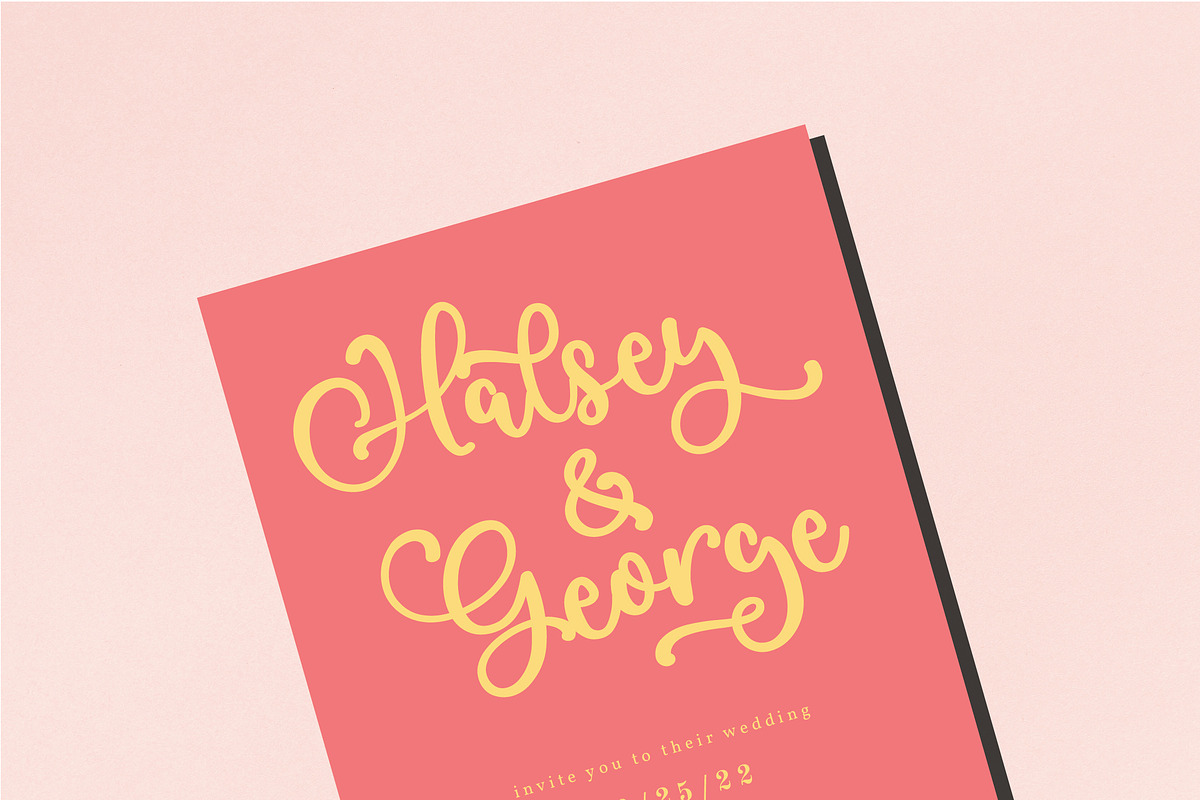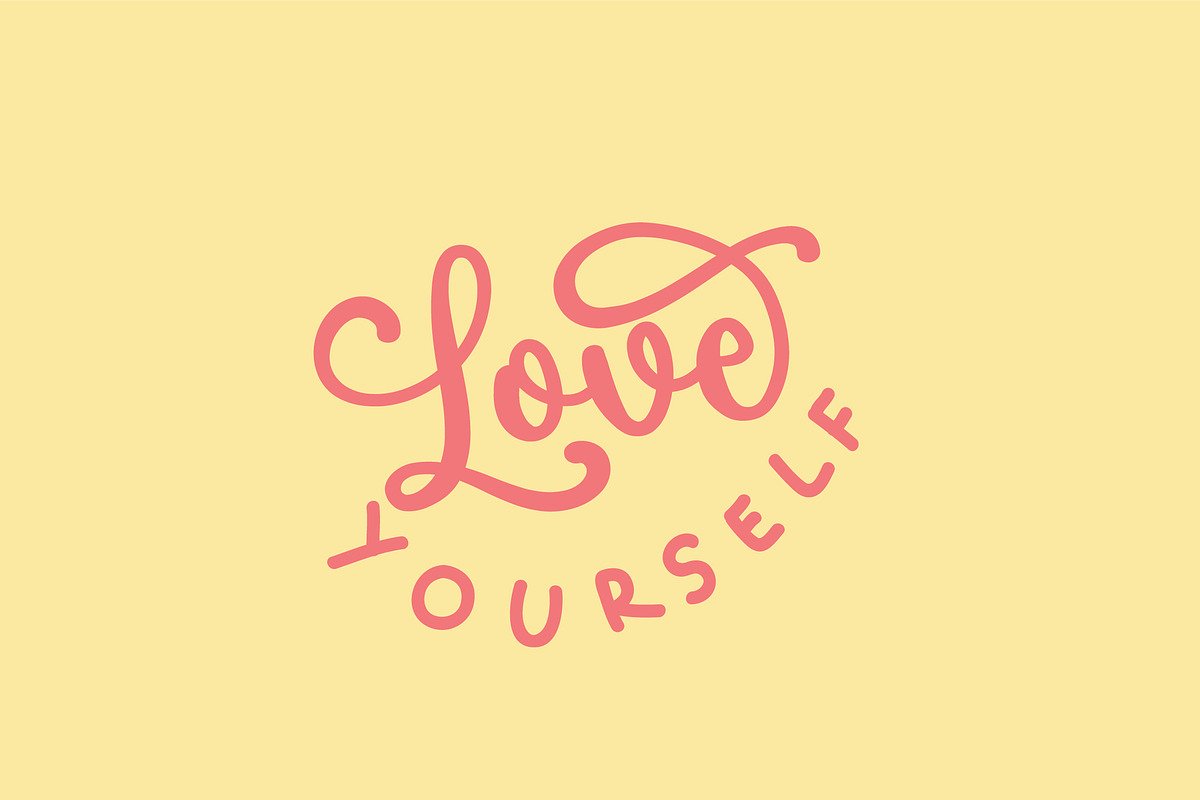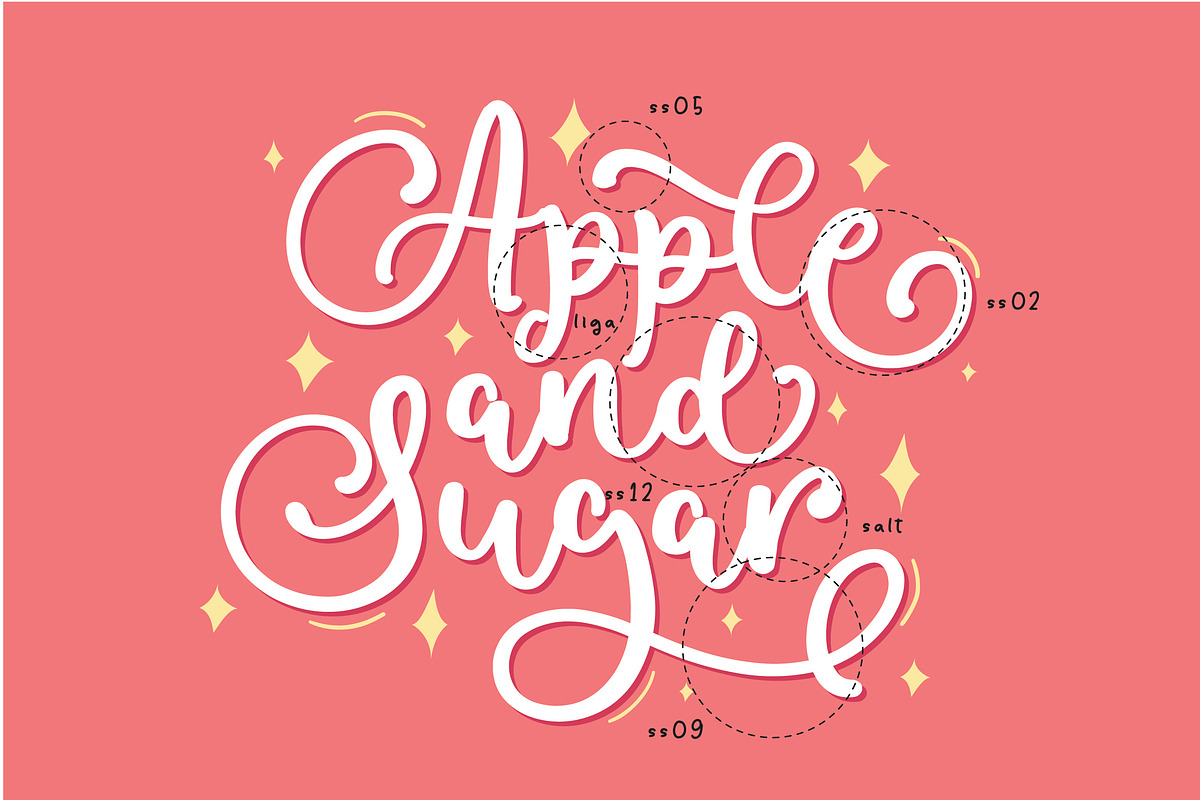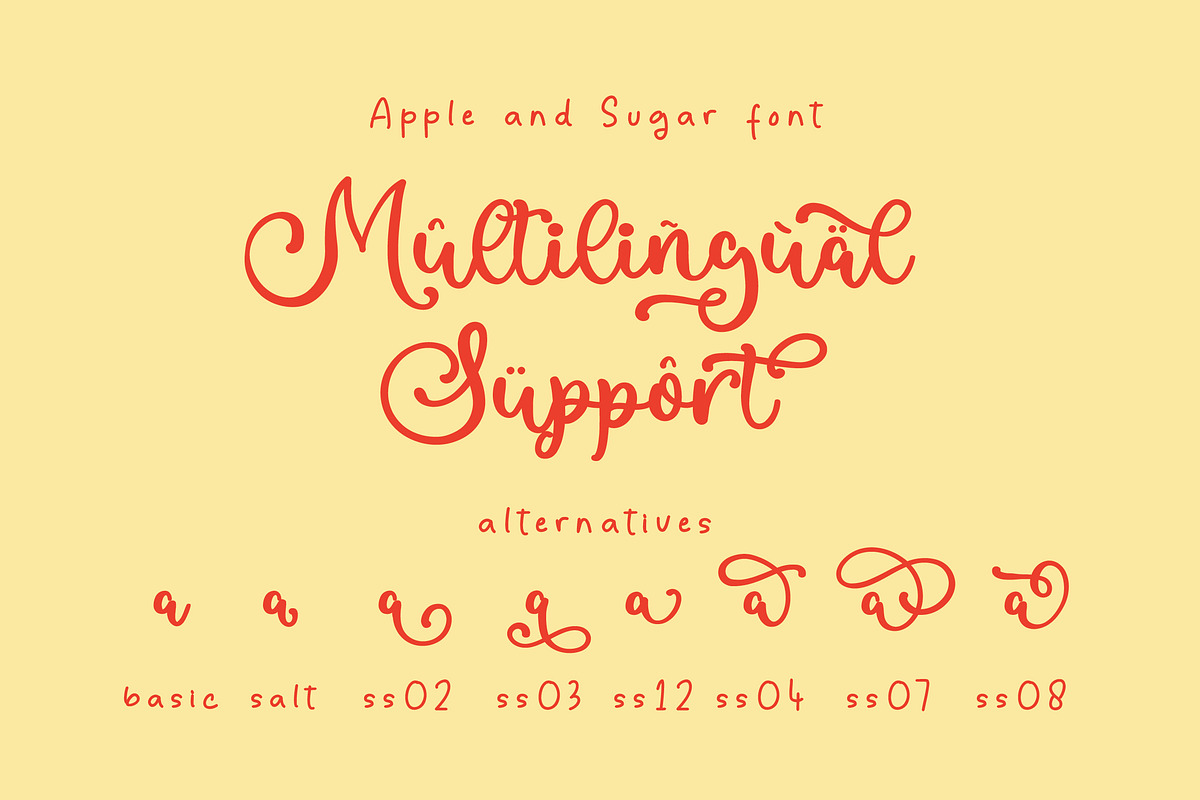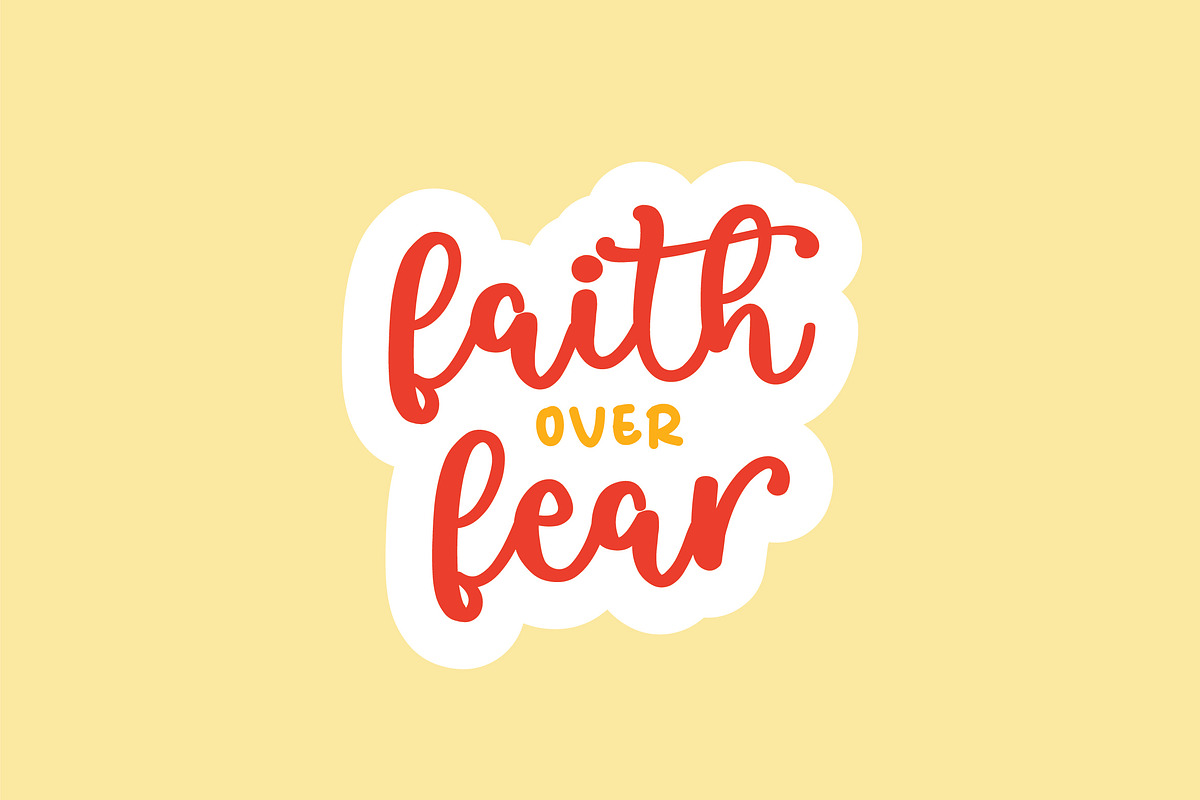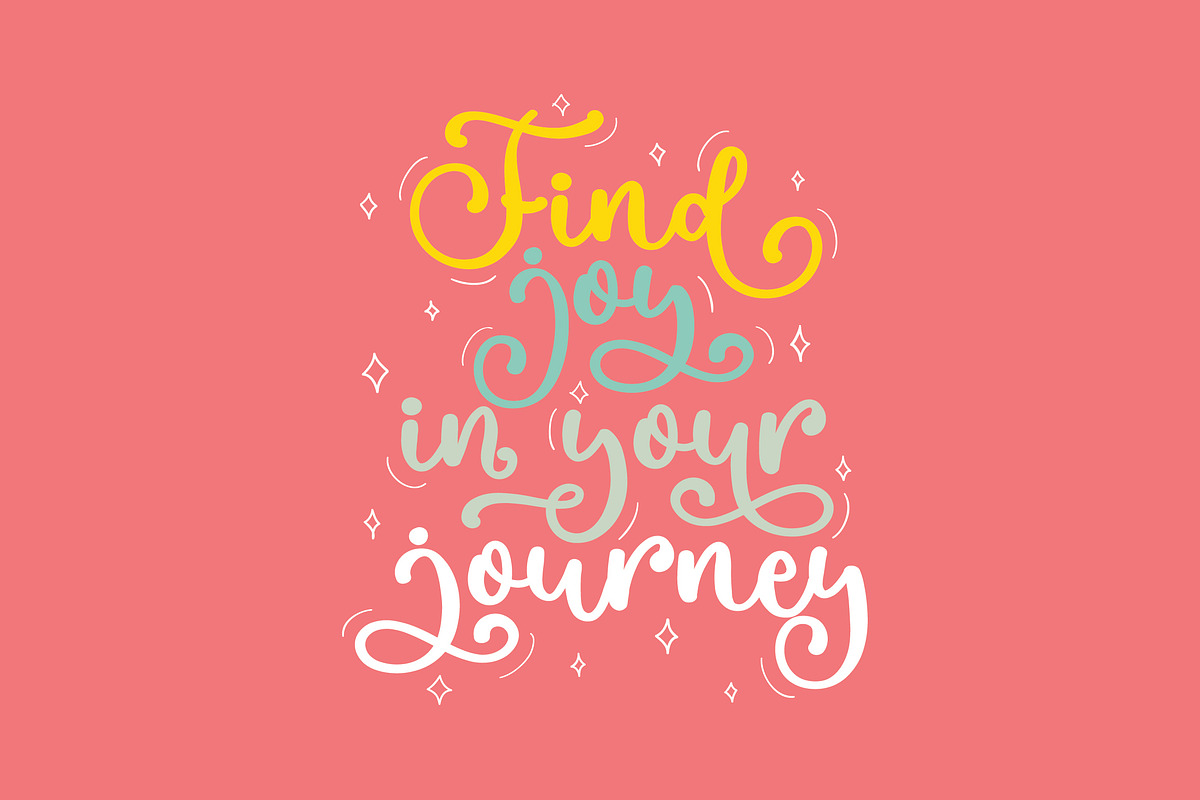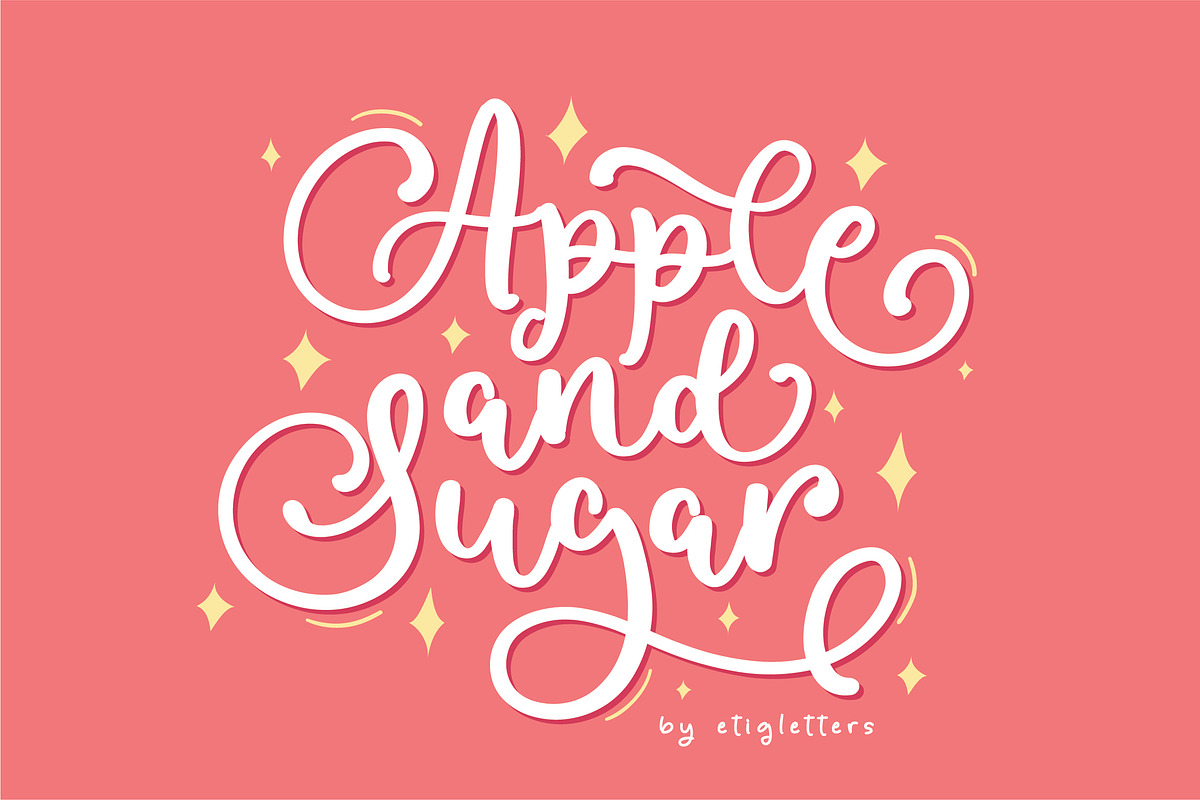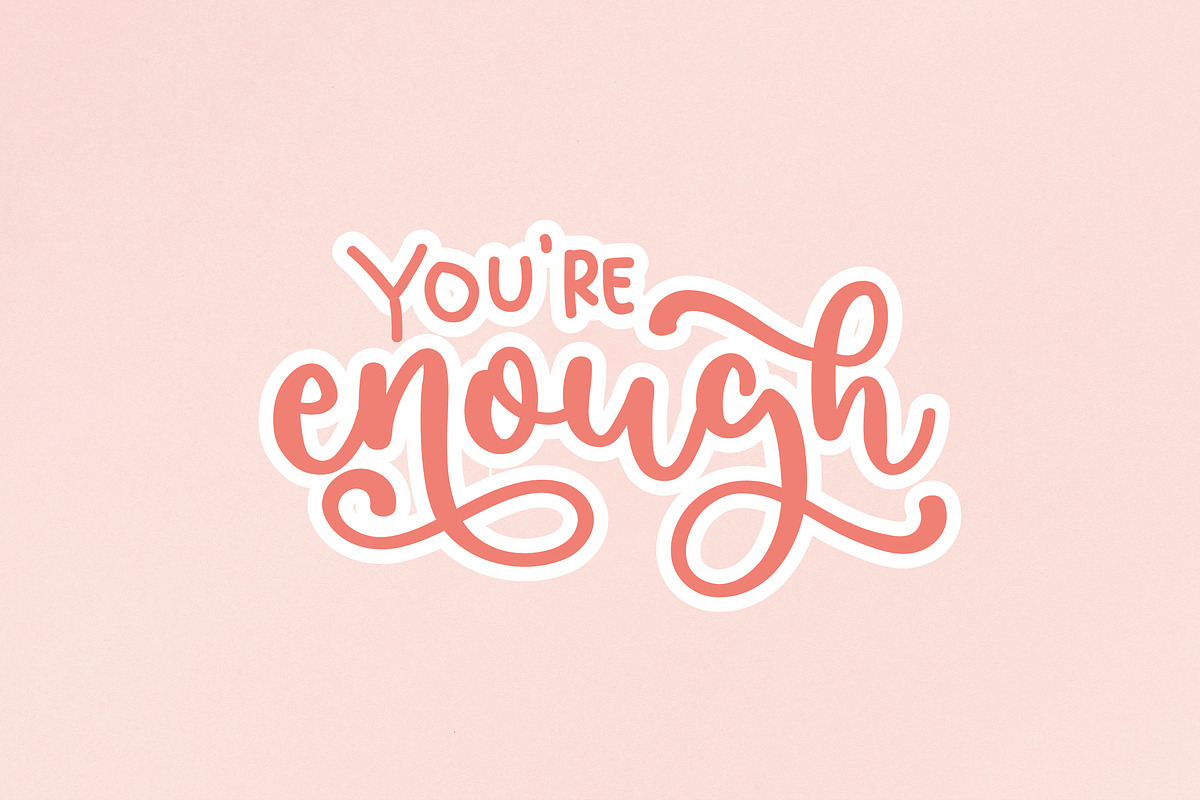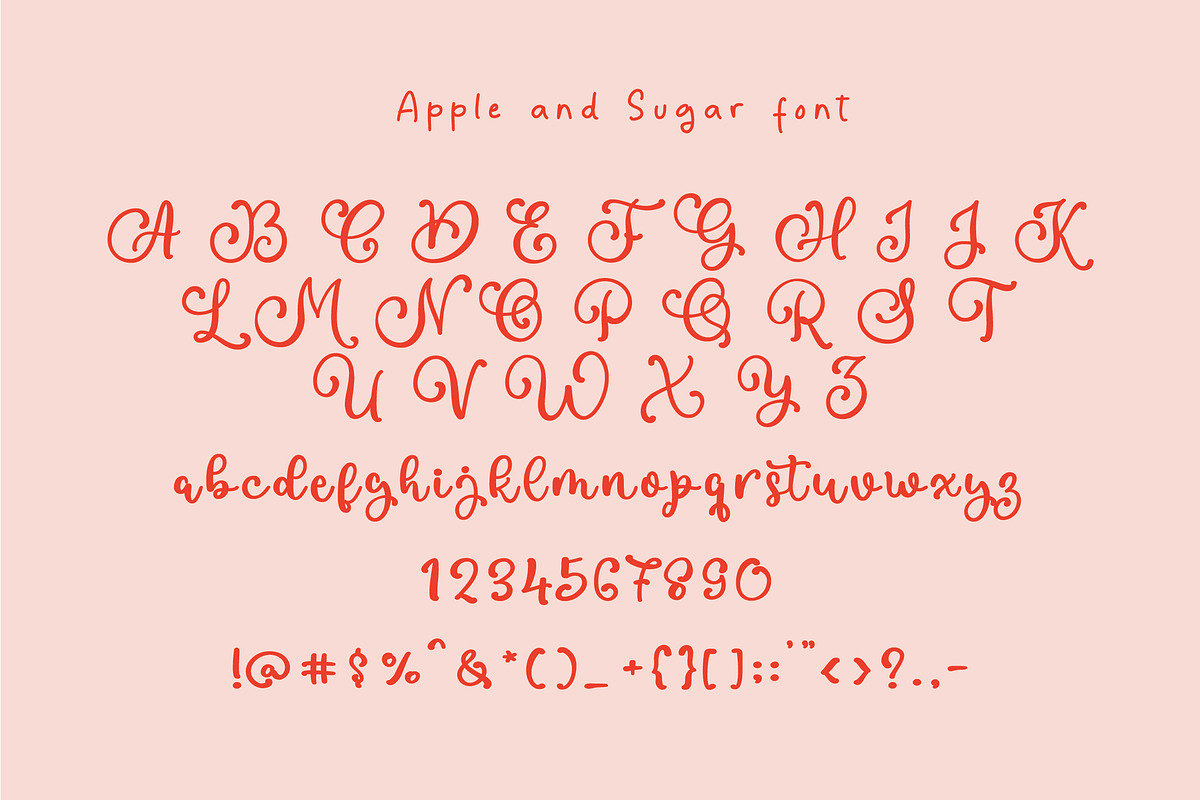
Apple and Sugar Font
Introducing Apple and Sugar font is a handwriting font with a sweet look and flourishing character. Apple and Sugar can be used for various types of design needs such as branding materials, social media, quotes, and more.
Apple and Sugar also includes a full set of gorgeous uppercase and lowercase letters, numerals, punctuations, ligatures. This font also suitable to be combined with sans serif that will make your design more perfect. Apple and Sugar is also support multilingual and already PUA Encoded! Stylistic Set from ss01 until ss12!